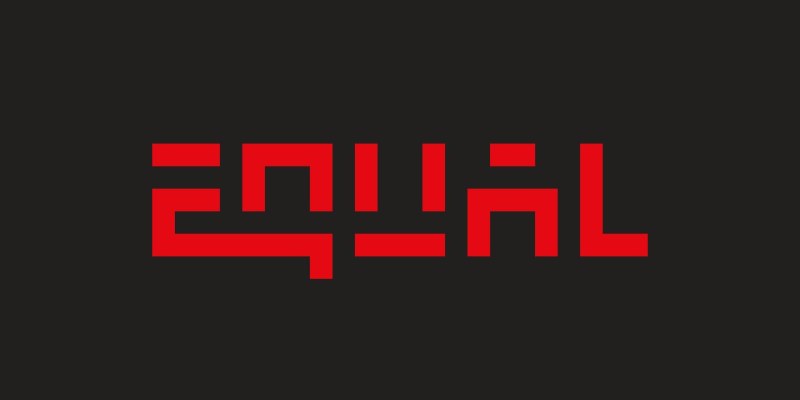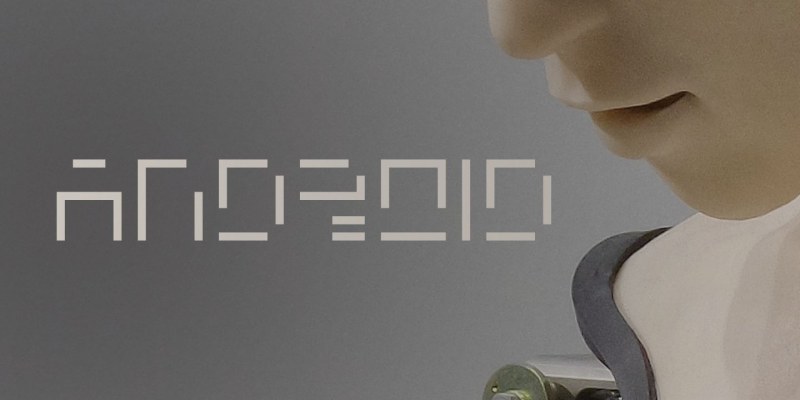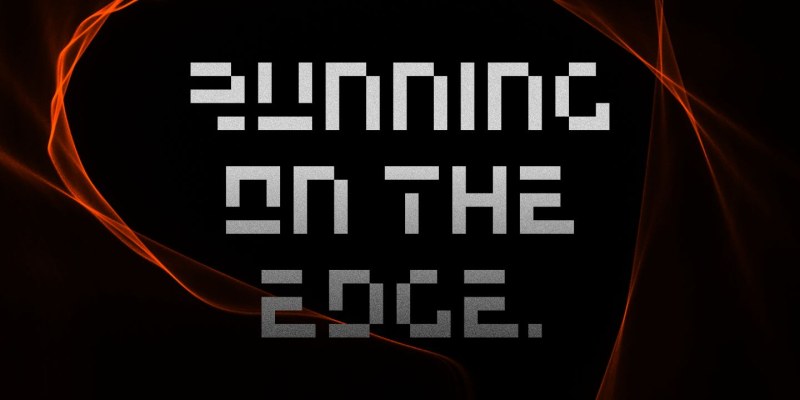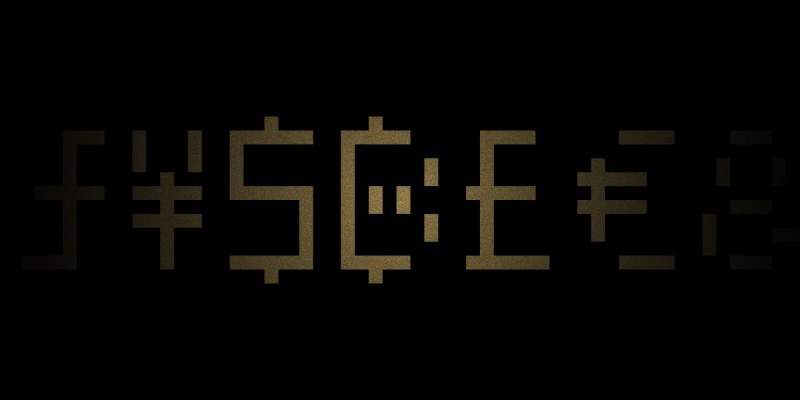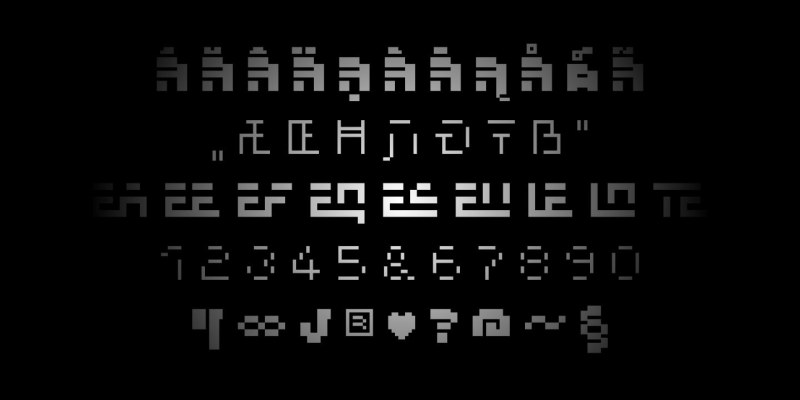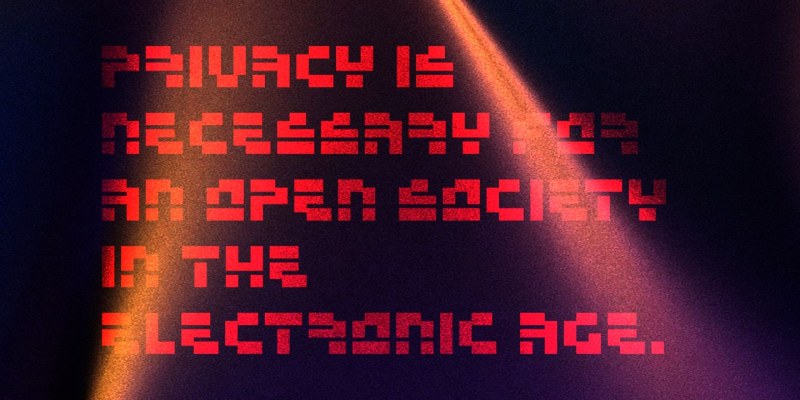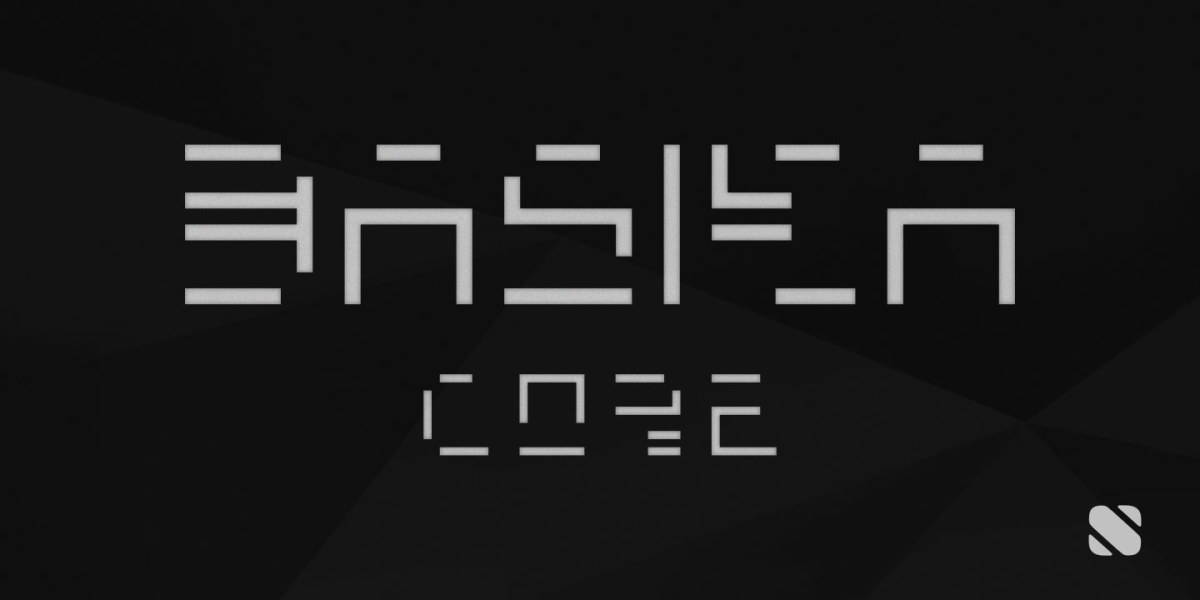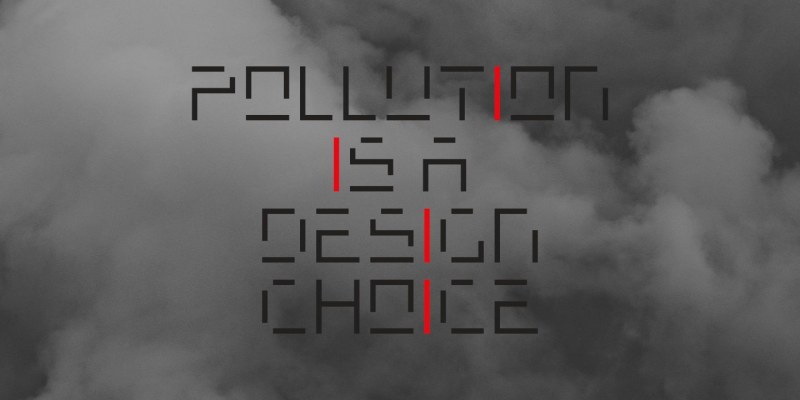
Basika Core Font Family
The Core edition unleashes the true nature of Basika. A powerful communication means for designers and a bridge from the past into the future of experimental typeface design. Basika Core comes in three styles, it includes discretionary ligatures and stylistic alternates
Where Basika Core Font Family works best
Basika Core Font Family is built for size: event posters, hero headlines and billboard-style layouts.
High contrast display type like Basika Core Font Family reads instantly in thumbnails and motion graphics.